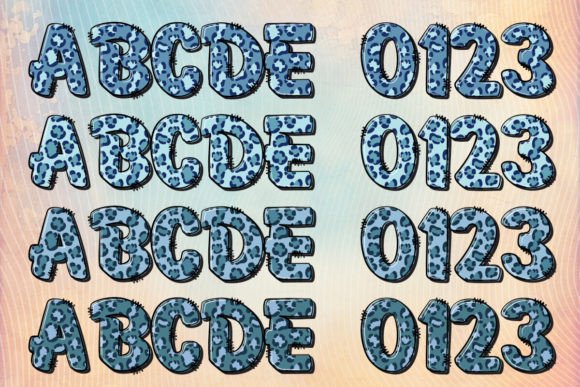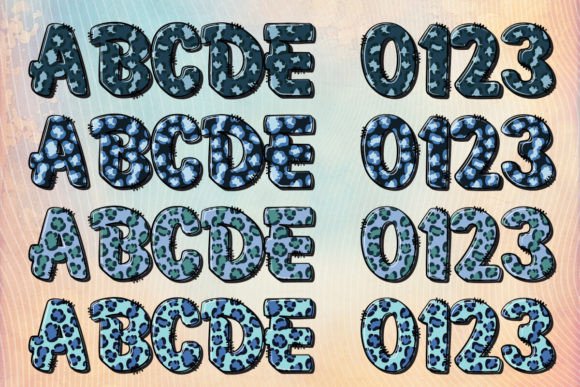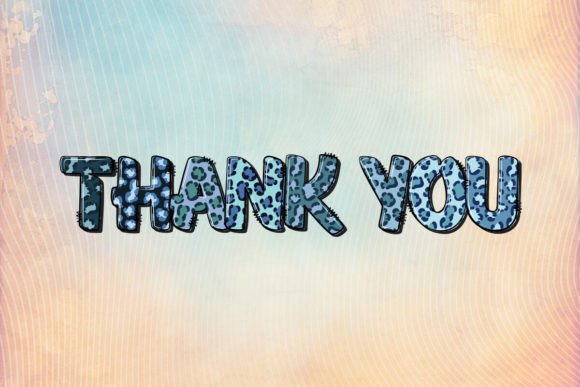
Introduction to Blue Leopard Font
Introducing “Blue Leopard Font”, the perfect blend of elegance and wild flair.
Roaring onto the digital typography scene, this font is cloaked in a standout leopard pattern and drenched in chic navy tones Dive into a sea of cheetah skin impressions as you type upto your heart’s content.